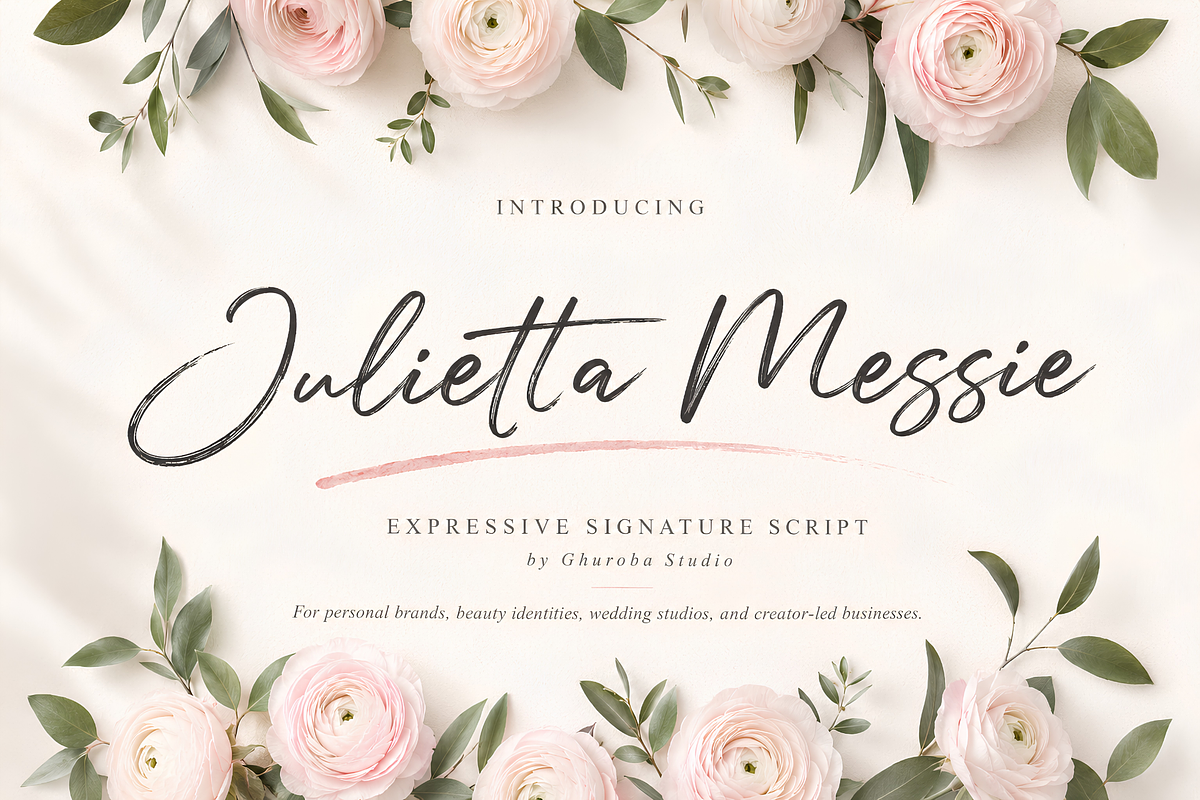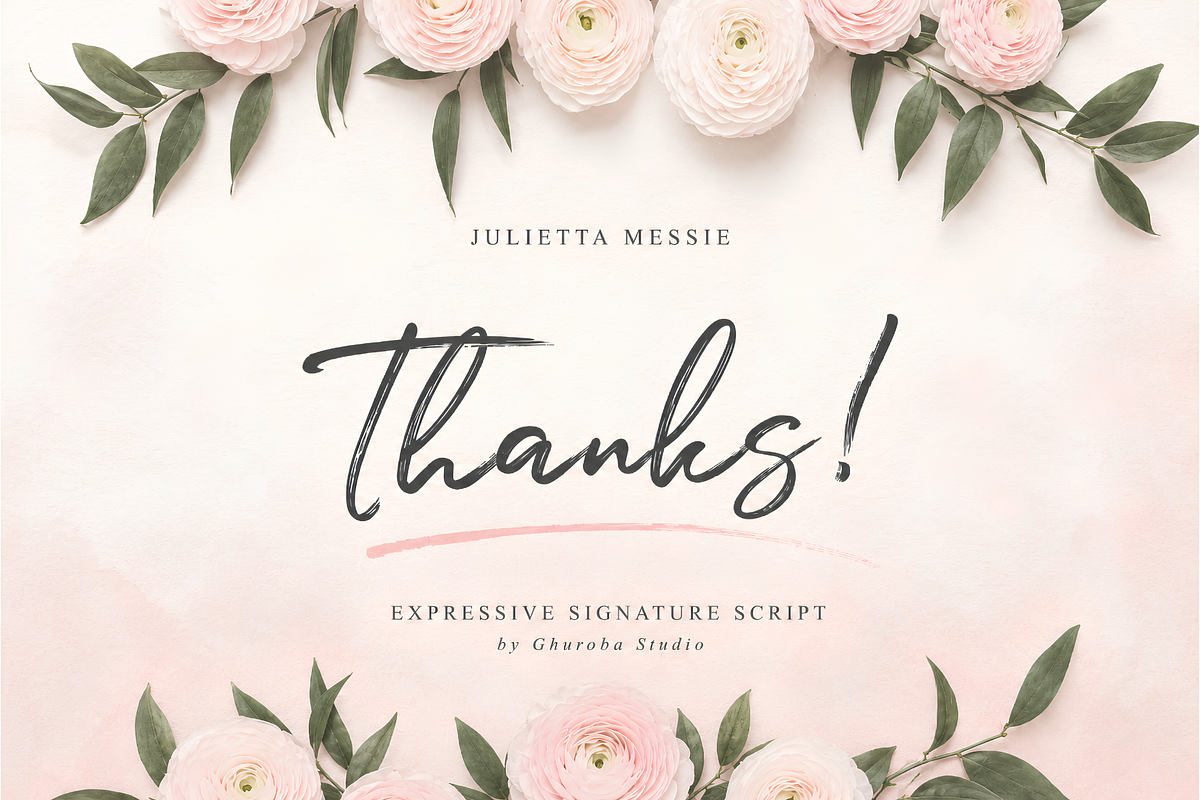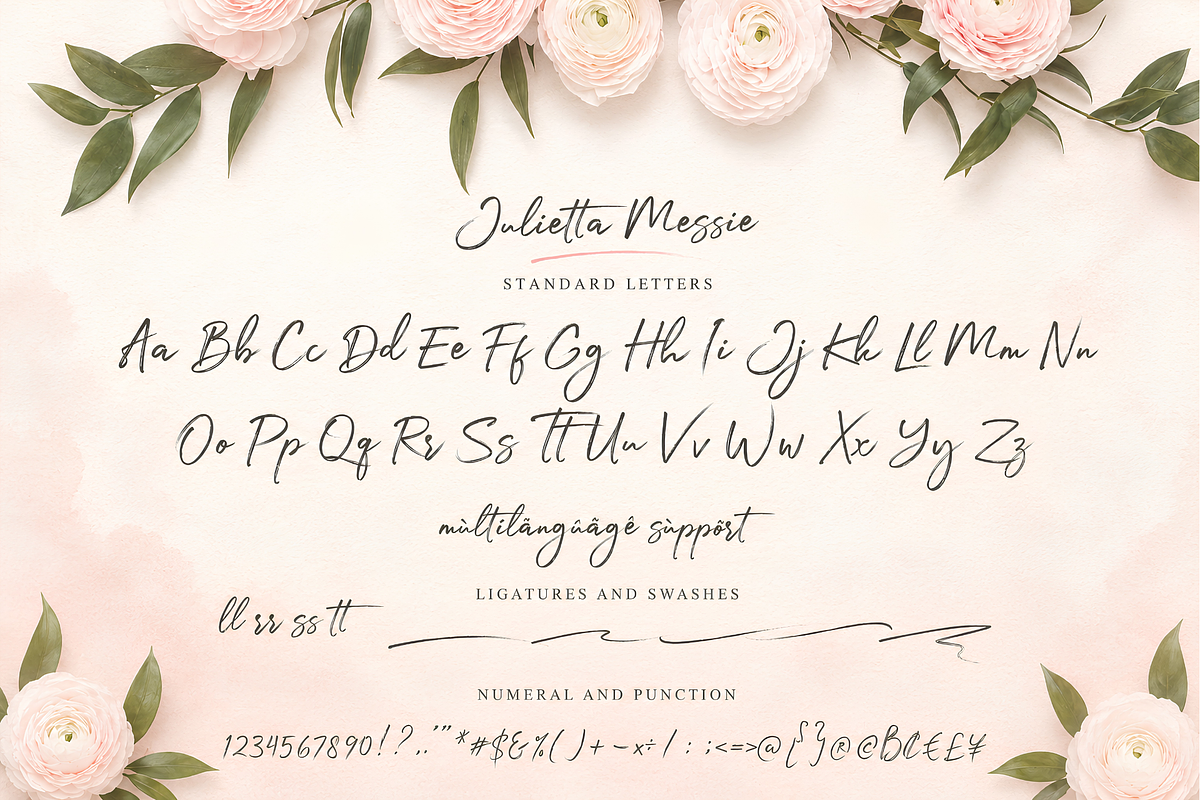
Julietta Messie Signature Script
Julietta Messie is an expressive handwritten signature script font for personal brands, logos, beauty identities, wedding stationery, boutique packaging, and creator-led businesses.
Built with natural brush movement and a confident handwritten rhythm, Julietta Messie works well as a logo font, branding font, wedding font, beauty font, and packaging font for projects that need warmth, movement, and a recognizable personal voice.
Use it for signature-style logos, skincare packaging, wedding invitations, product labels, social media graphics, photography marks, thank you cards, business cards, and brand visuals that need a personal handwritten touch without feeling generic.
Features Included:
Uppercase & lowercase letters
Swashes
Logo design
Personal branding
Beauty and skincare brands
Wedding invitations
Boutique packaging
Photography logos
Product labels
Stationery and thank you cards